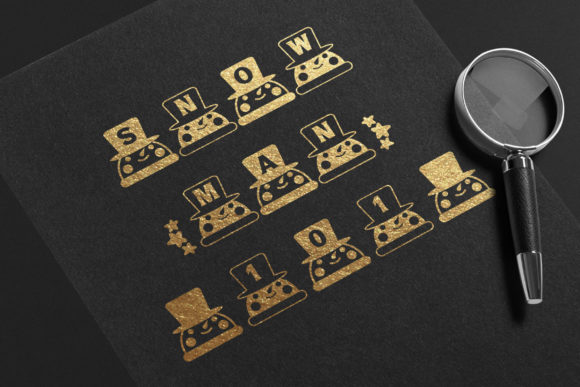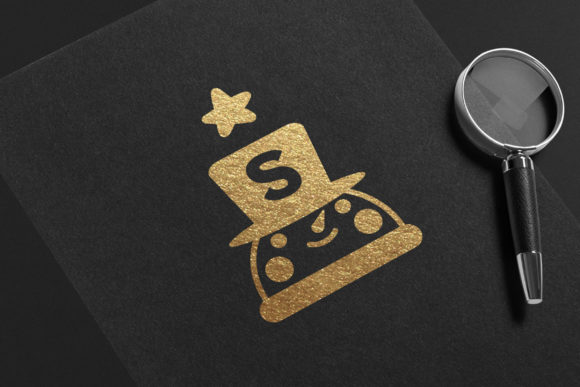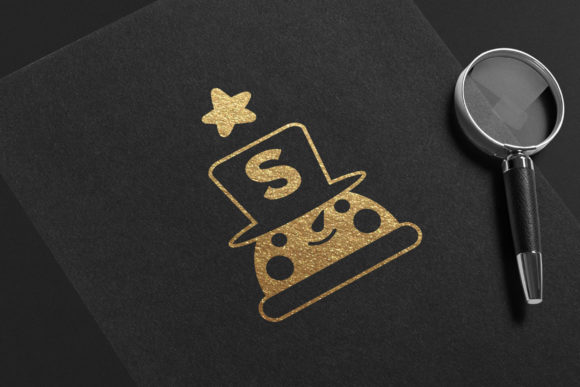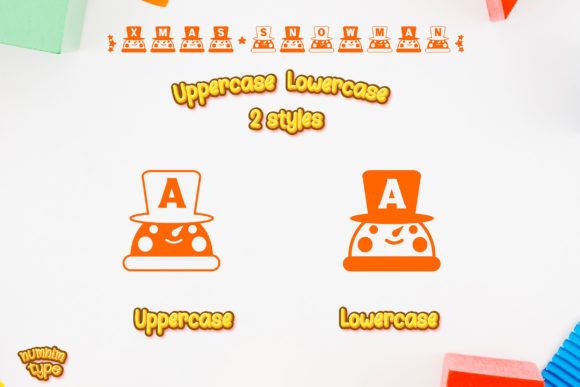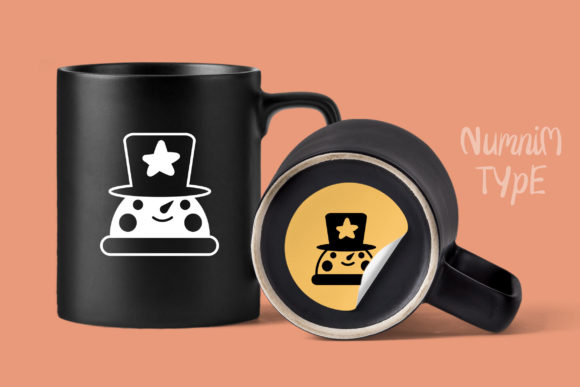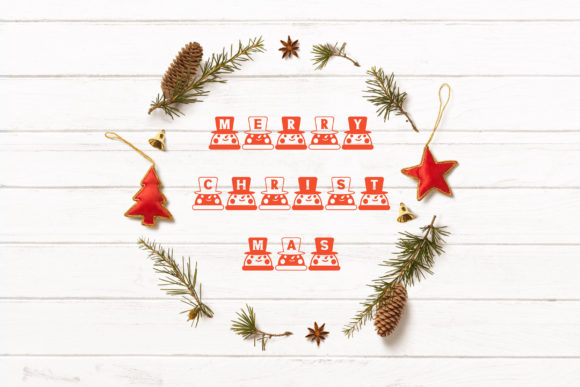
Christmas Snowman Font: Add a Playful Touch to Your Designs
Are you looking for a fun and playful font to add a festive touch to your designs? Look no further than the Christmas Snowman Font! This cool and decorative font is perfect for crafters, digital designers, and anyone looking to add a touch of whimsy to their projects.
What is Christmas Snowman Font?
Christmas Snowman Font is a unique and eye-catching font that features a playful snowman design. The font is made up of cute and quirky snowman characters that are sure to bring a smile to anyone’s face. With its fun and festive design, this font is perfect for a variety of projects, from holiday cards and decorations to digital designs and presentations.
Features of Christmas Snowman Font
- Playful Design: The Christmas Snowman Font features a fun and playful design that is sure to add a touch of whimsy to your projects.
- Decorative: This font is perfect for adding a decorative touch to your designs, from holiday cards to digital designs.
- Versatile: The Christmas Snowman Font can be used for a variety of projects, including crafting, digital designing, presentations, and greeting cards.
Uses for Christmas Snowman Font
So, what can you use the Christmas Snowman Font for? The possibilities are endless! Here are a few ideas to get you started:
- Holiday Cards: Add a playful touch to your holiday cards with the Christmas Snowman Font.
- Digital Designs: Use this font to add a festive touch to your digital designs, from social media graphics to blog posts.
- Crafting: The Christmas Snowman Font is perfect for crafters, from scrapbooking to DIY decorations.
- Presentations: Add a fun and playful touch to your presentations with this unique font.
- Greeting Cards: Use the Christmas Snowman Font to create fun and festive greeting cards for any occasion.
Tips for Using Christmas Snowman Font
Here are a few tips for using the Christmas Snowman Font:
- Pair with Other Fonts: Pair the Christmas Snowman Font with other fonts to create a unique and eye-catching design.
- Use in Combination with Images: Use the Christmas Snowman Font in combination with images of snowmen, snowflakes, and other winter-themed images.
- Have Fun: Most importantly, have fun with the Christmas Snowman Font! It’s a playful font that’s meant to bring a smile to your face.